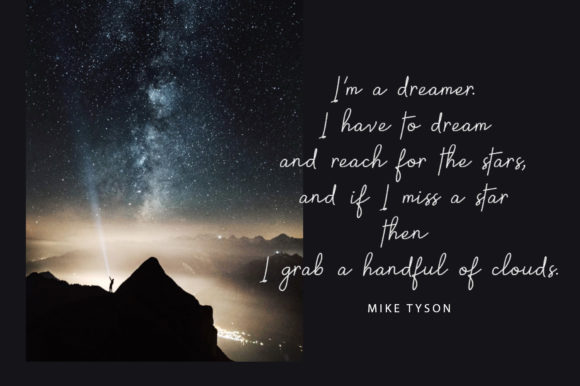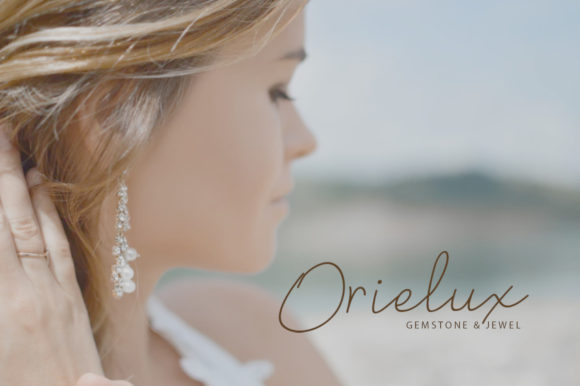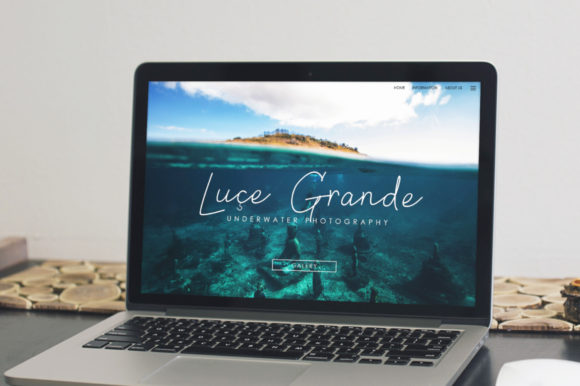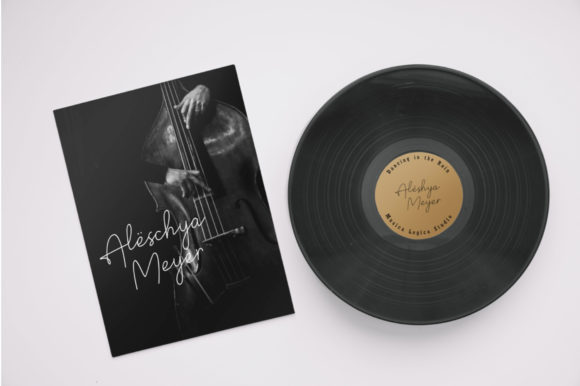
HomeScript FontsHoskyla Font Script Fonts Hoskyla Font FacebookXPinterestWhatsApp Hoskyla Font Poster 2 Hoskyla Font Poster 3 Hoskyla Font Poster 4 Hoskyla Font Poster 5 About Hoskyla Font Hoskyla is a simple mono-line script font. It’s charming script style make text look natural & classy! DOWNLOAD ON CREATIVE FABRICAThis font is sold and delivered by Creative Fabrica. Font Canyon may earn a commission if you buy through this link. People also explored Pre Font Groundhog Font Sunny April Font Ghotana Font Half of My Heart Font Redbock Font Brightsy Font Christmas Lights Font Quinnesha Font 329 0 TagsHoskyla Font Previous articleHalloween Story FontNext articleBlackburn Font LEAVE A REPLY Cancel reply Comment: Please enter your comment! Name:* Please enter your name here Email:* You have entered an incorrect email address! Please enter your email address here Website: Save my name, email, and website in this browser for the next time I comment. Personal Use Free Blessed Font Personal Use Free Read more about this font UseYourImagination Personal Use Free Read more about this font Angola Beach Personal Use Free Read more about this font Zojihun Personal Use Free Read more about this font BLOG To increase your work productivity, choose the most readable fonts. In today's fast-paced work environment, where digital communication and information consumption are integral to our daily routines, the choice of fonts can significantly impact... Fonts That Capture the Spirit of New York City Using Fonts in Digital Marketing: Tips to Strengthen Your Brand Identity Free vs Paid Fonts: Why Investing in Premium Fonts Is Worth It